P22 Type Foundry
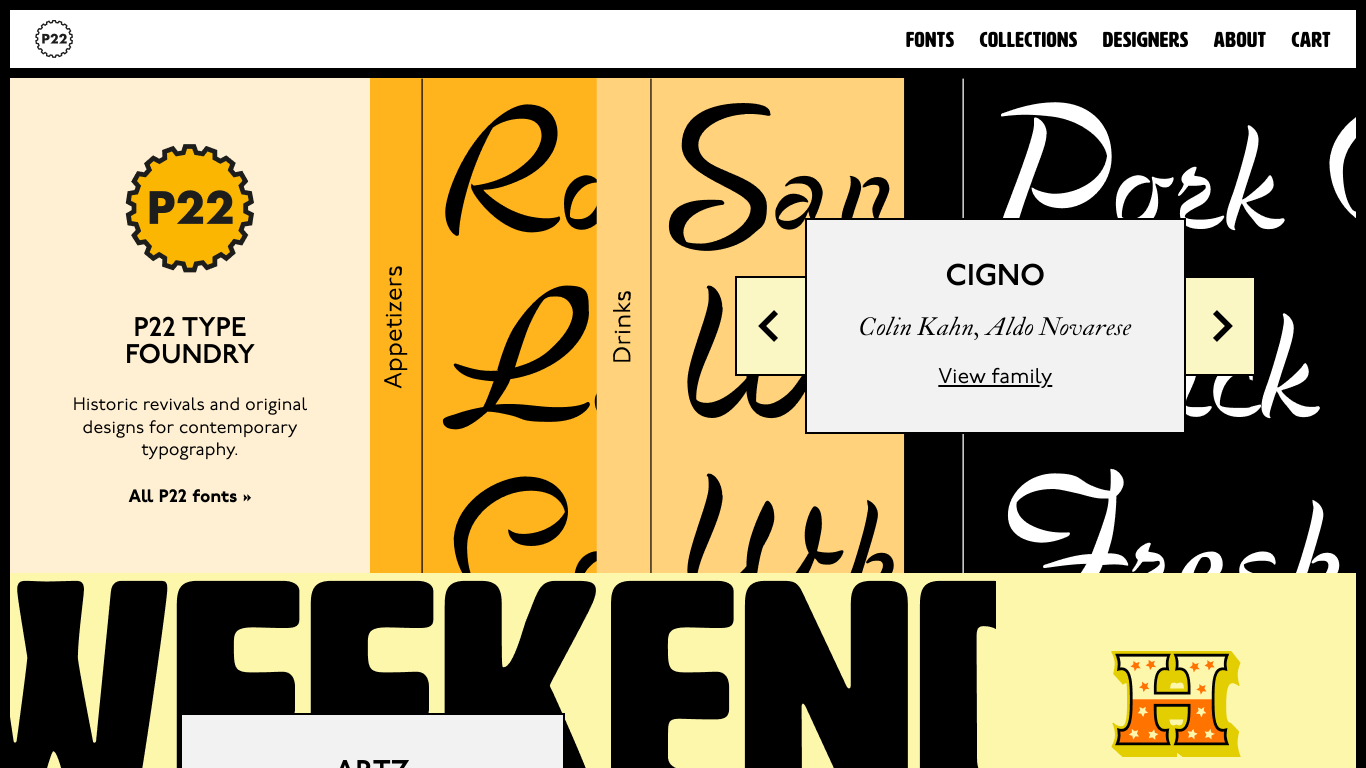
1994
P22 Type Foundry is a digital type foundry and letterpress printing studio based in Rochester, New York. It was established in 1994 by Richard Kegler and Carima El-Behairy. A unique aspect of P22 is its collaboration with museums and foundations to develop accurate historical typefaces. Additionally, P22 offers curated collections such as the Hamilton Wood Type Collection and Lanston Type Co., featuring both classic and contemporary designs. Its notable fonts include P22 Underground Pro, a revival of Edward Johnston’s London Underground typeface; P22 Declaration, based on the U.S. Declaration of Independence; and P22 Marcel, drawn from WWII-era handwritten letters. P22’s typefaces have been used in films like Harry Potter and Suburbicon, and by brands such as Trader Joe’s and Founders Brewing Co.